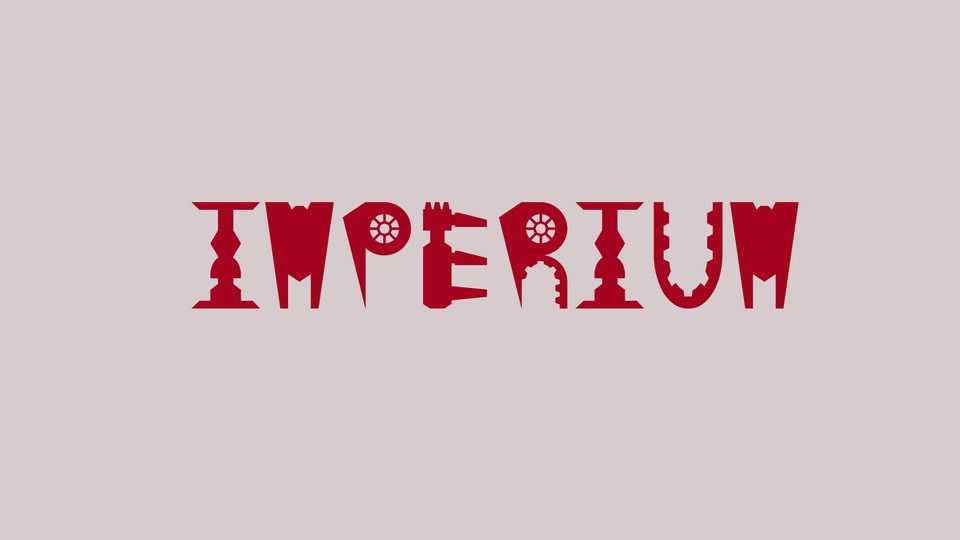
Download Imperium font, a thematic typeface to capture a specific aspect of a video game including its genre, mechanics, content, symbolism, or characters. Star Wars was chosen as the subject due to its intricate lore, futuristic orientation, and complex political landscape offering a rich source of inspiration for exploring decorative design concepts.
Designer: Samuel Robinson